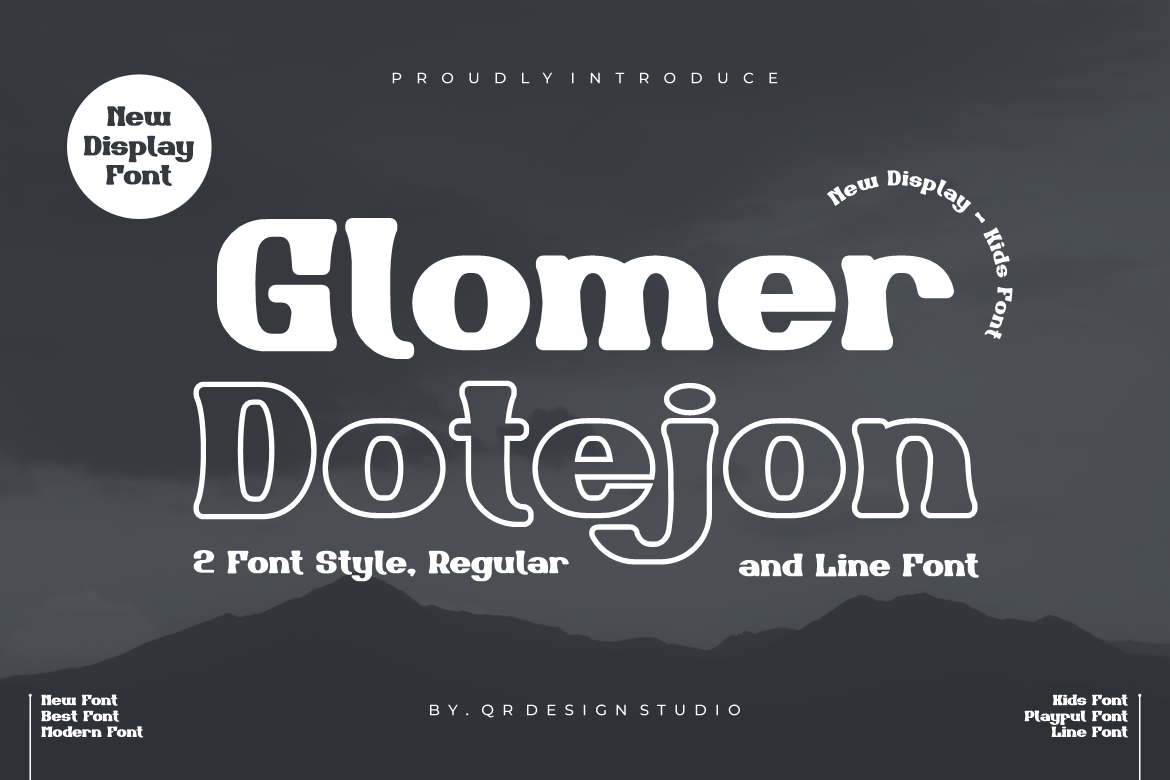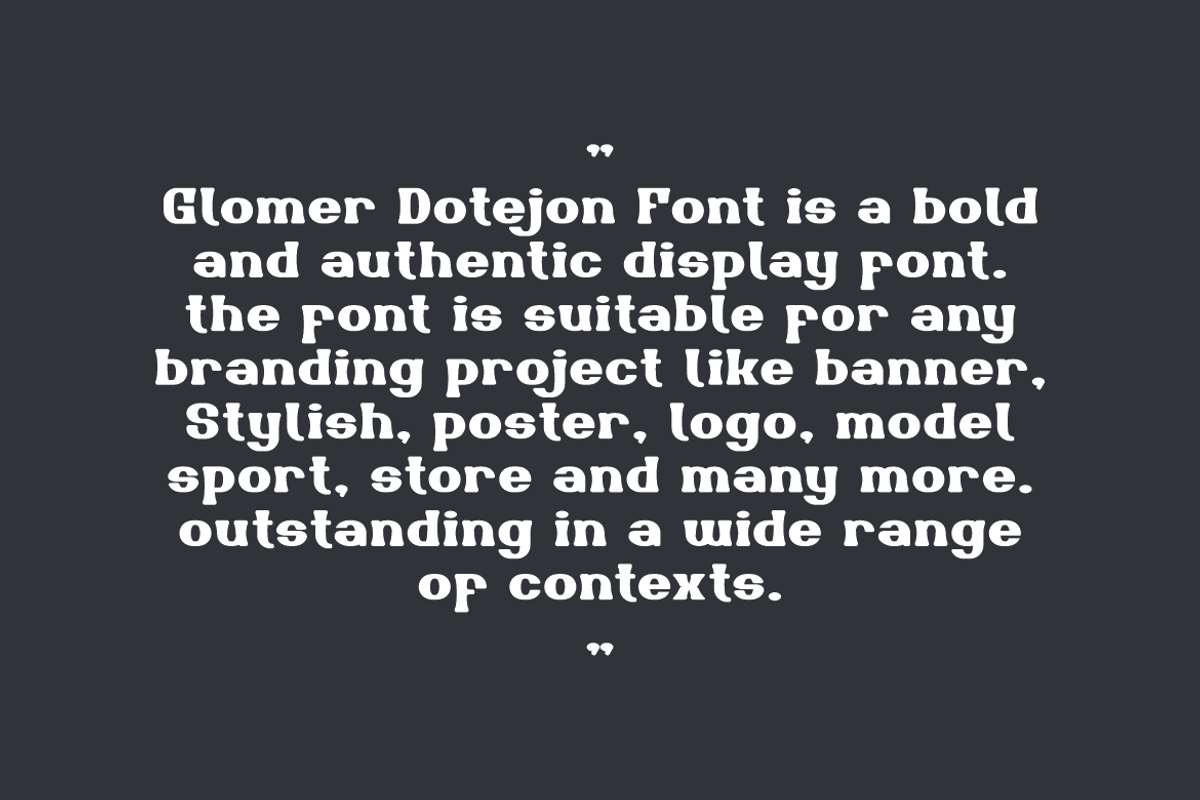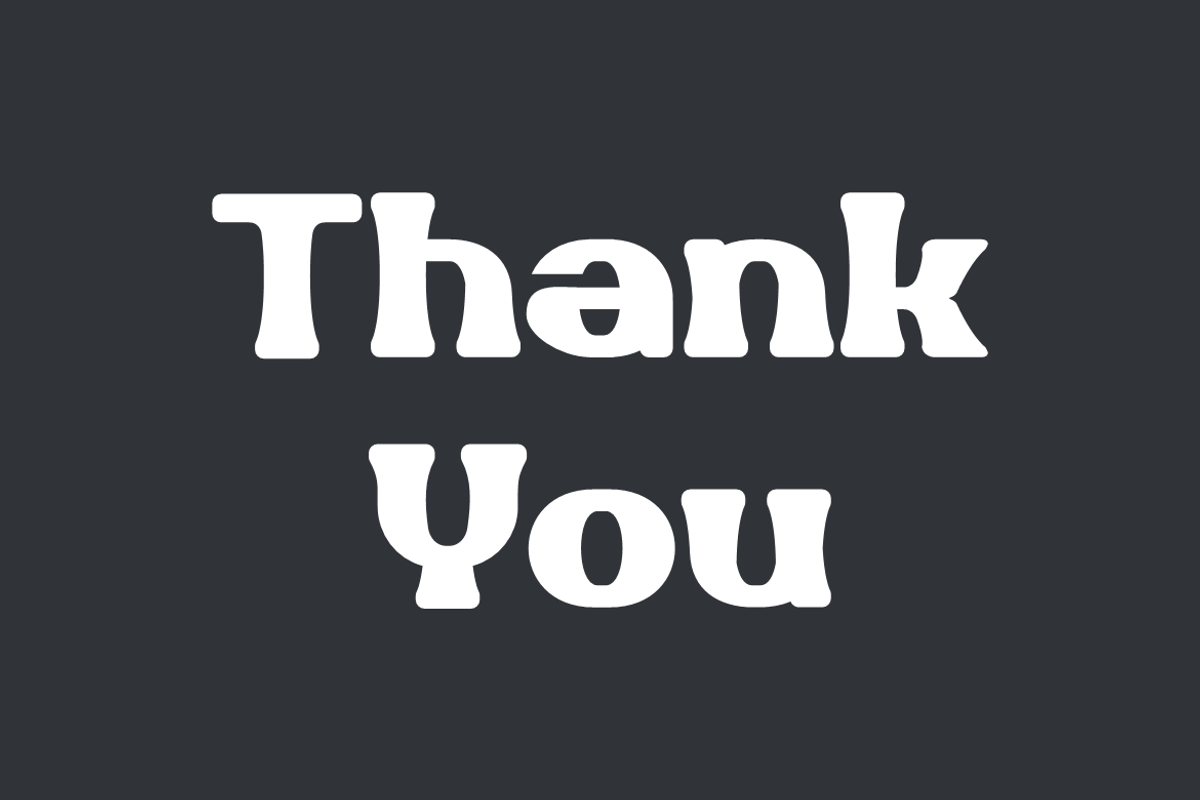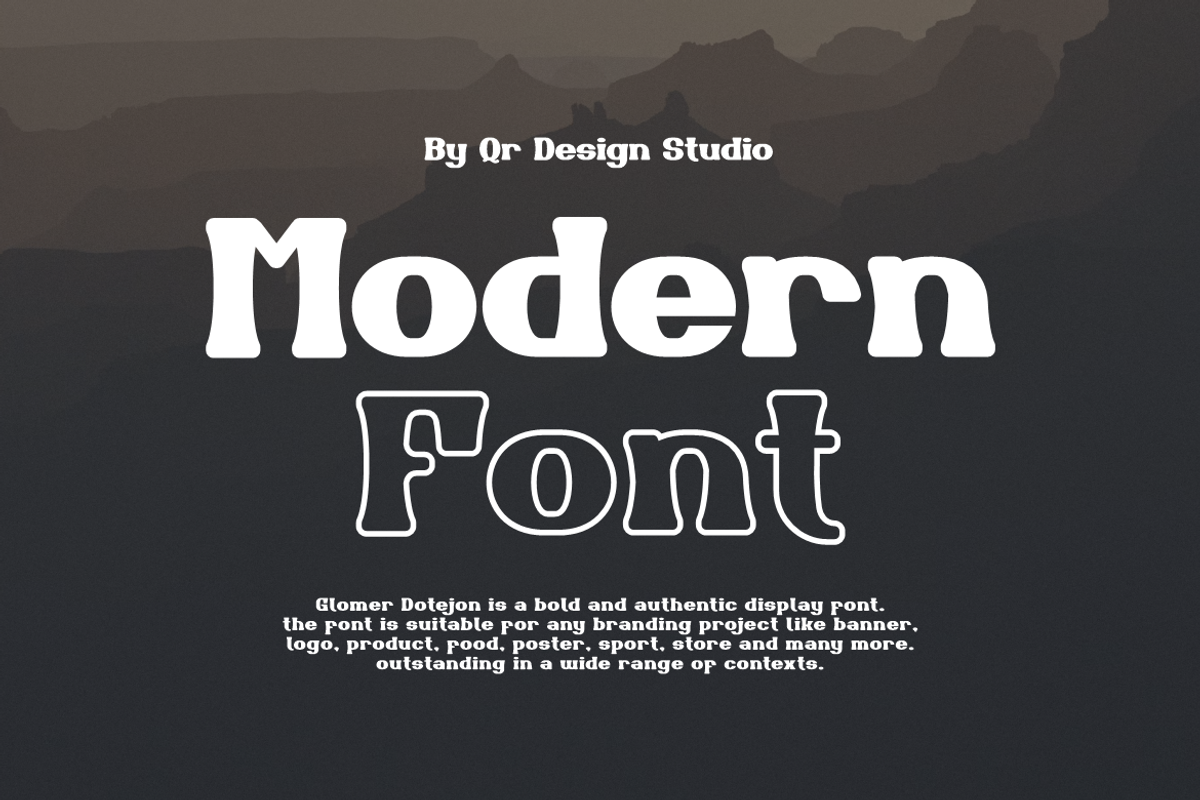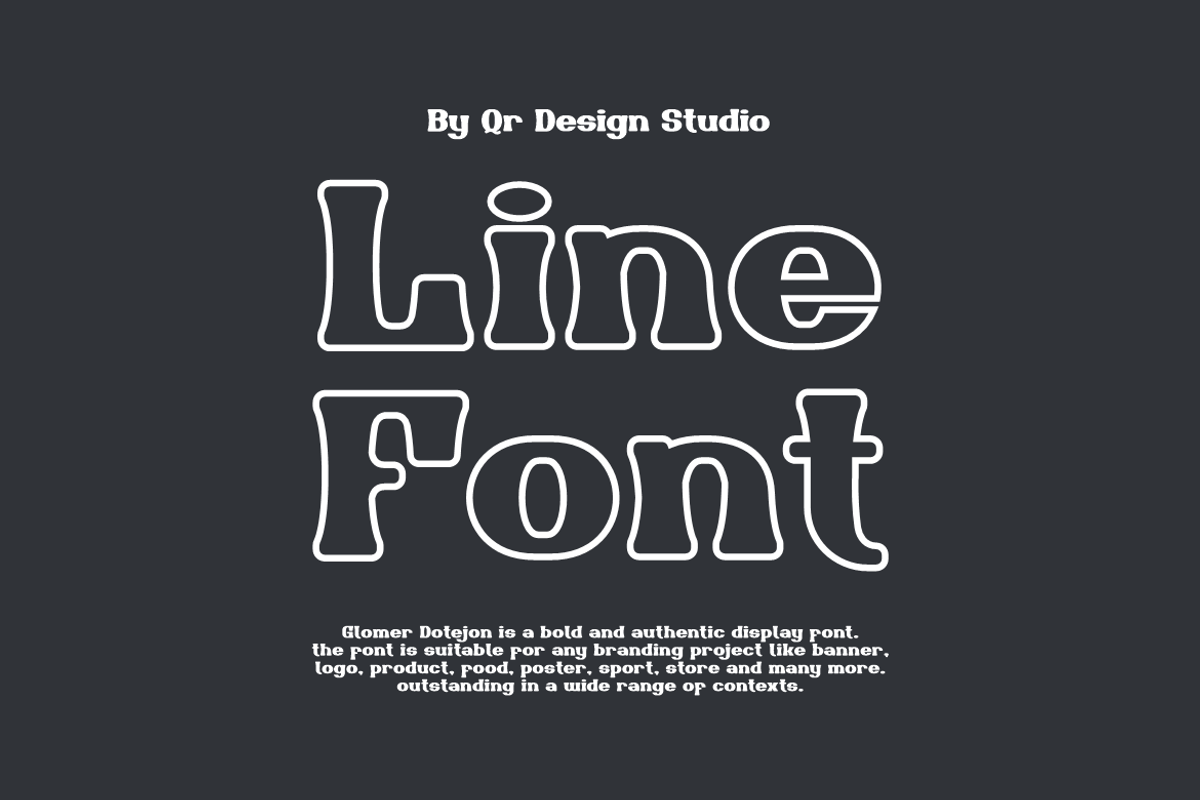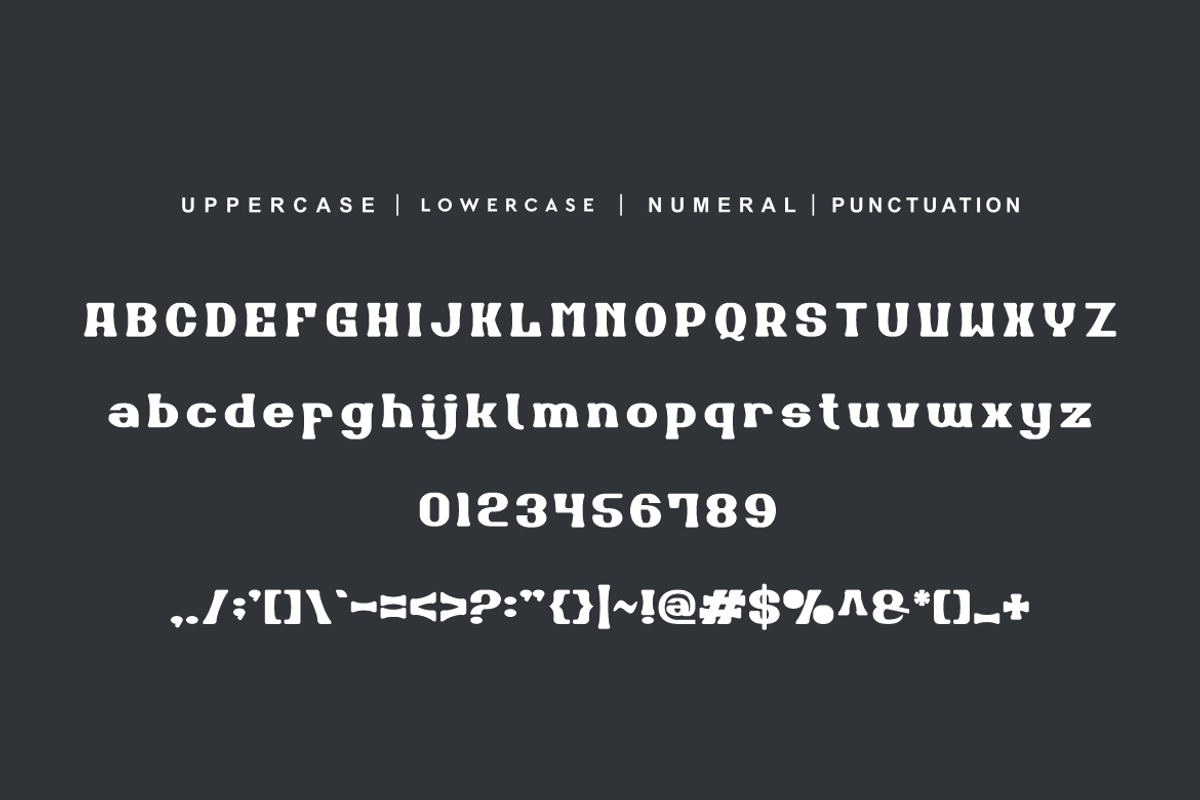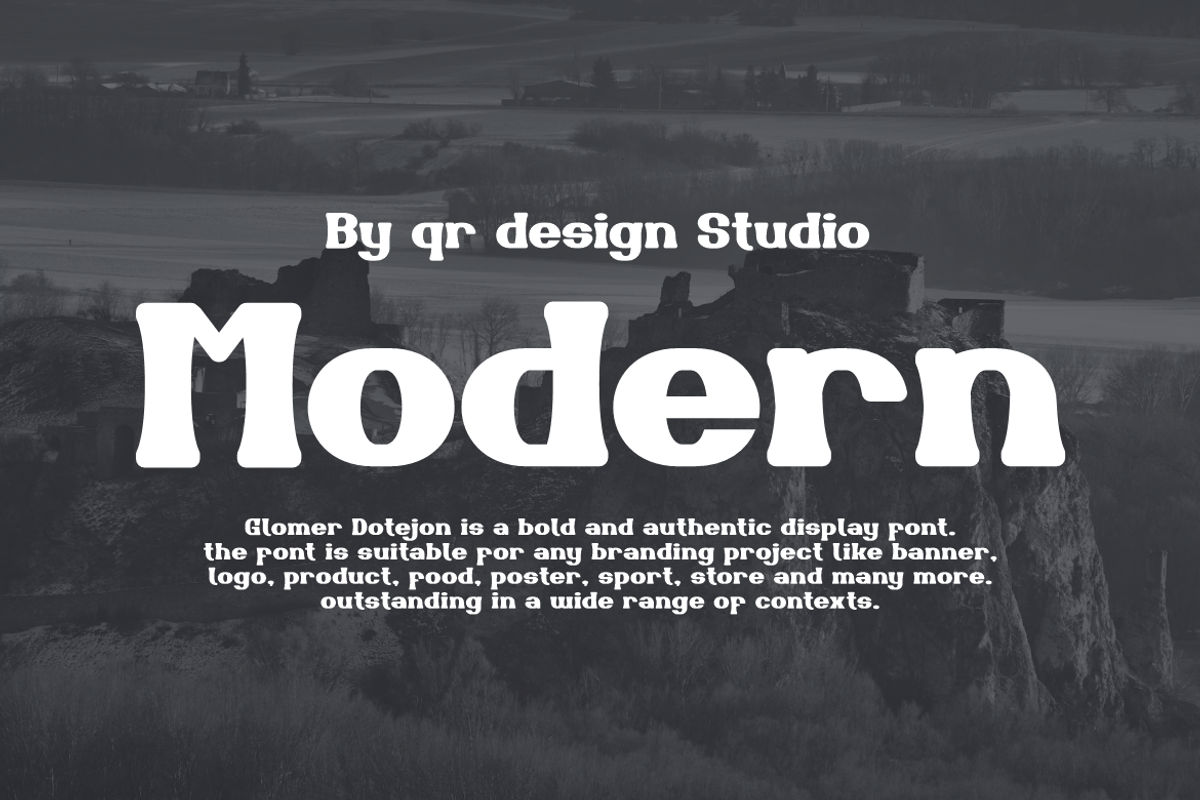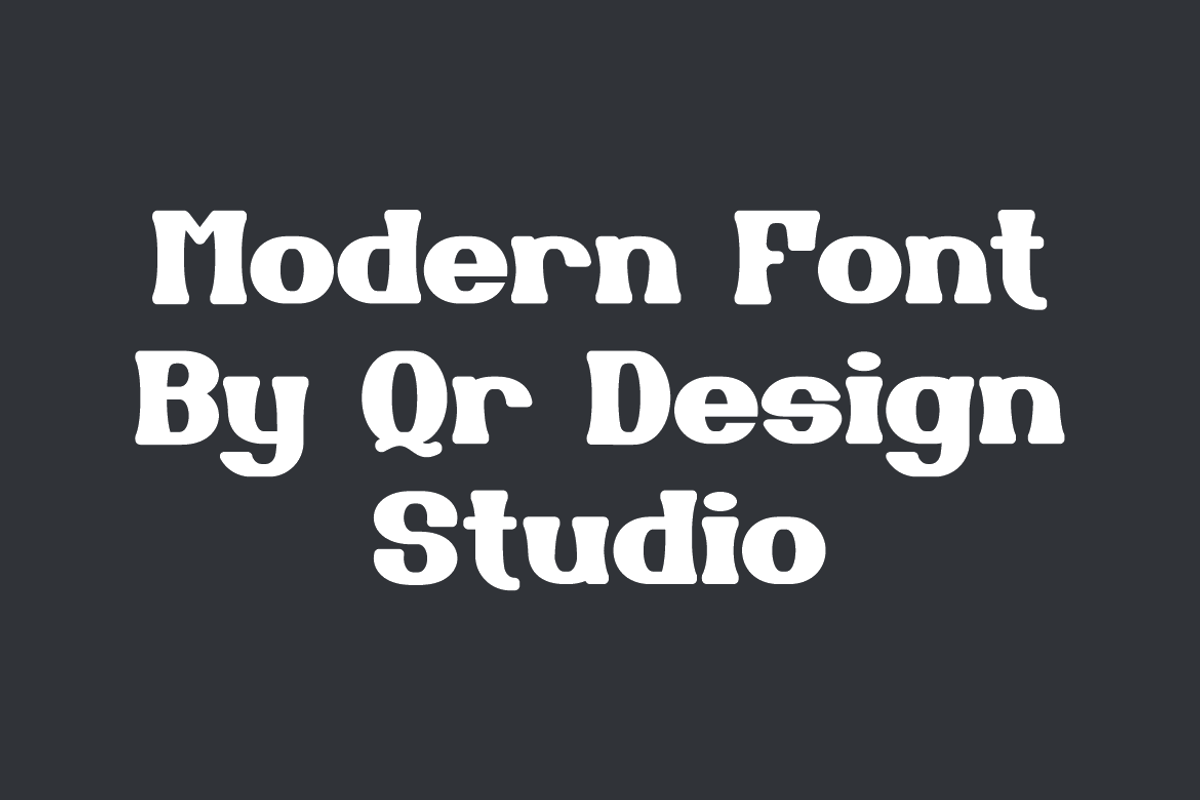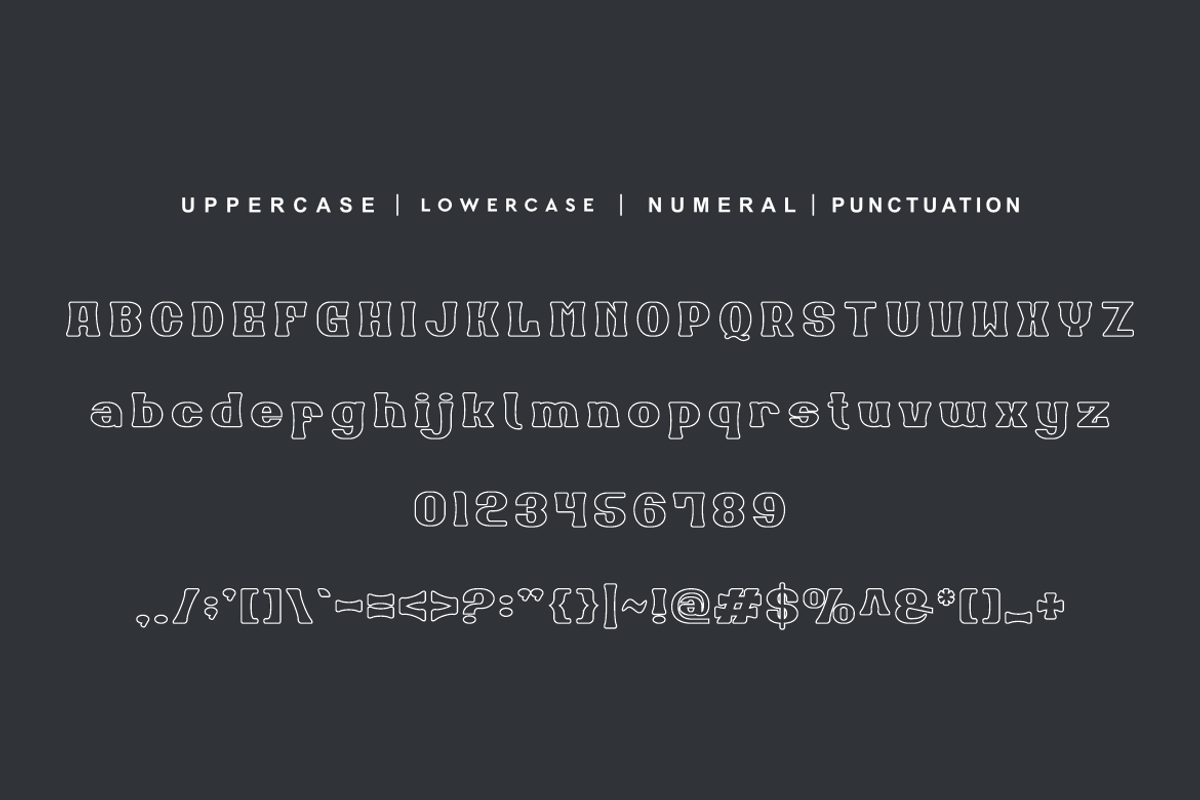
Glomer Dotejon - College Font
Glomer Dotejon - College Font is a bold and authentic display font. The font is suitable for any branding project like poster, food, vintage, logo, sport, and many more. Outstanding in a wide range of contexts.